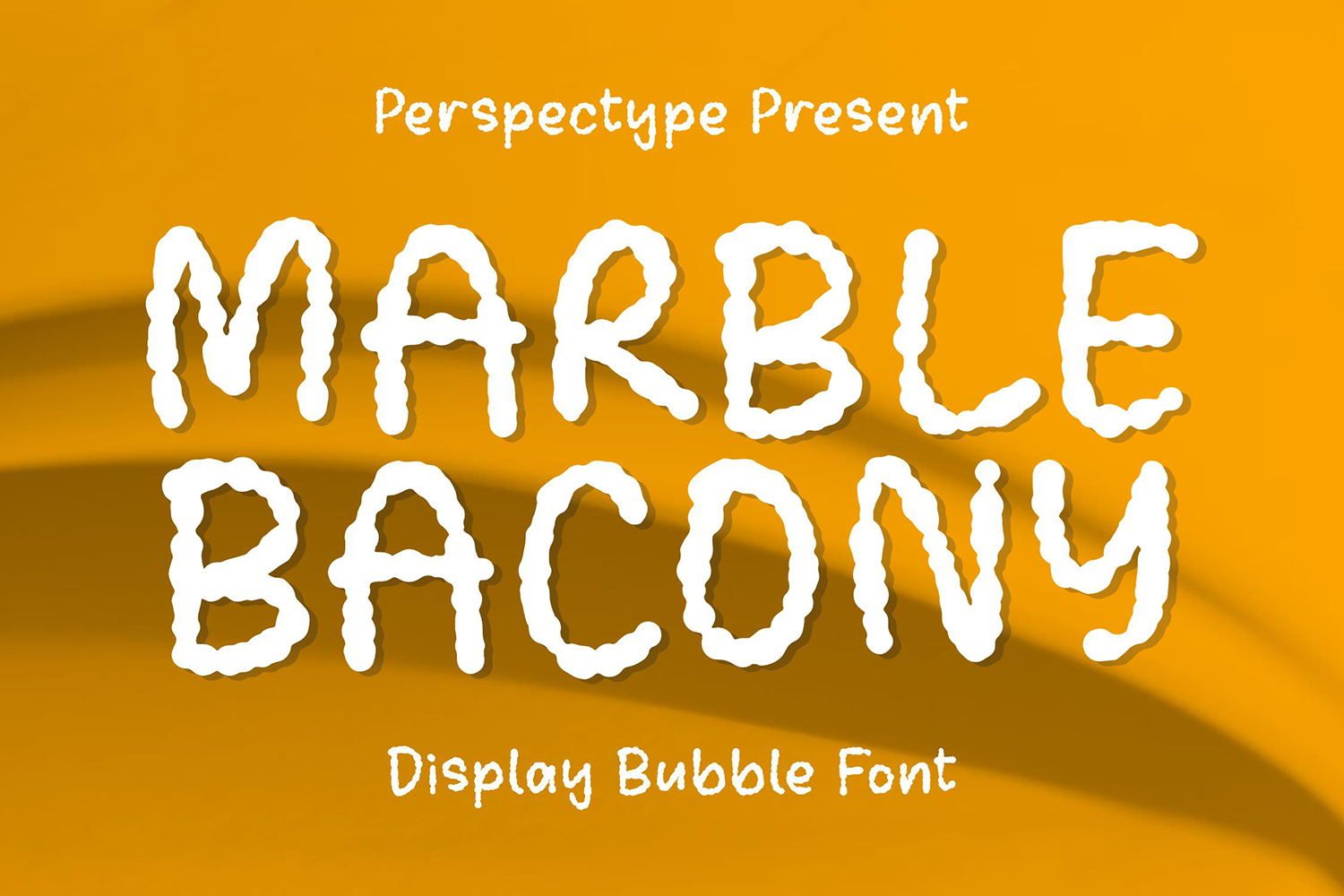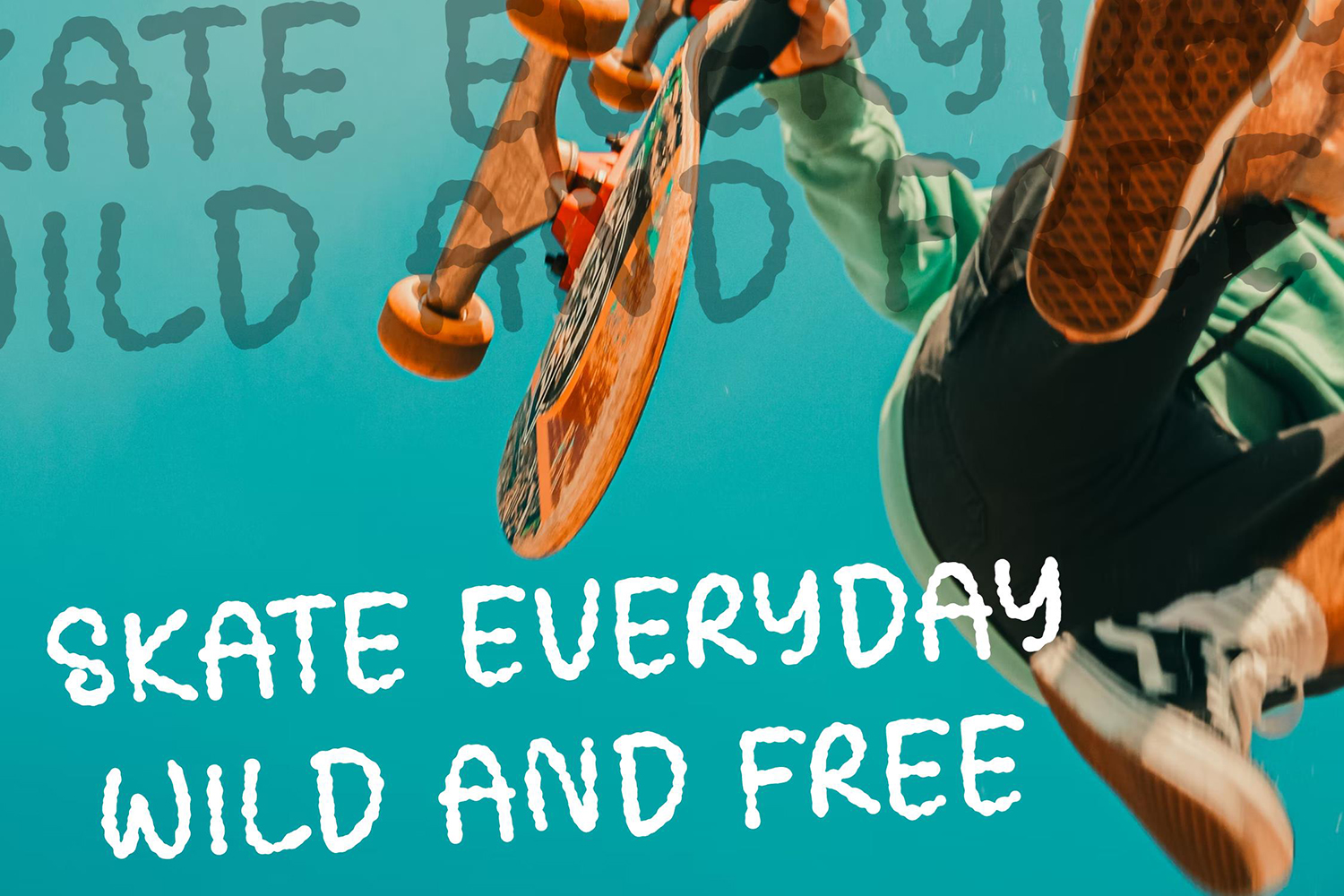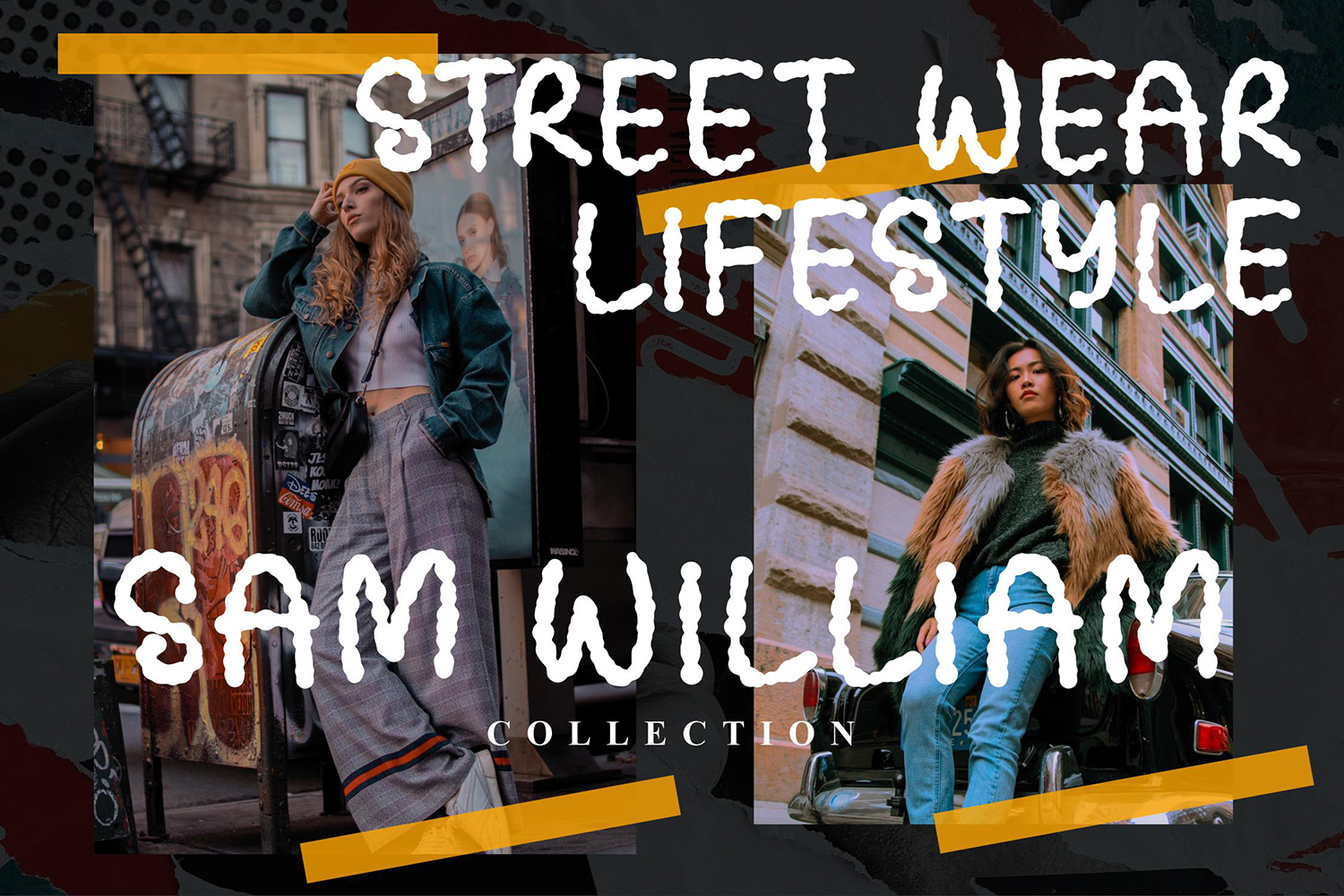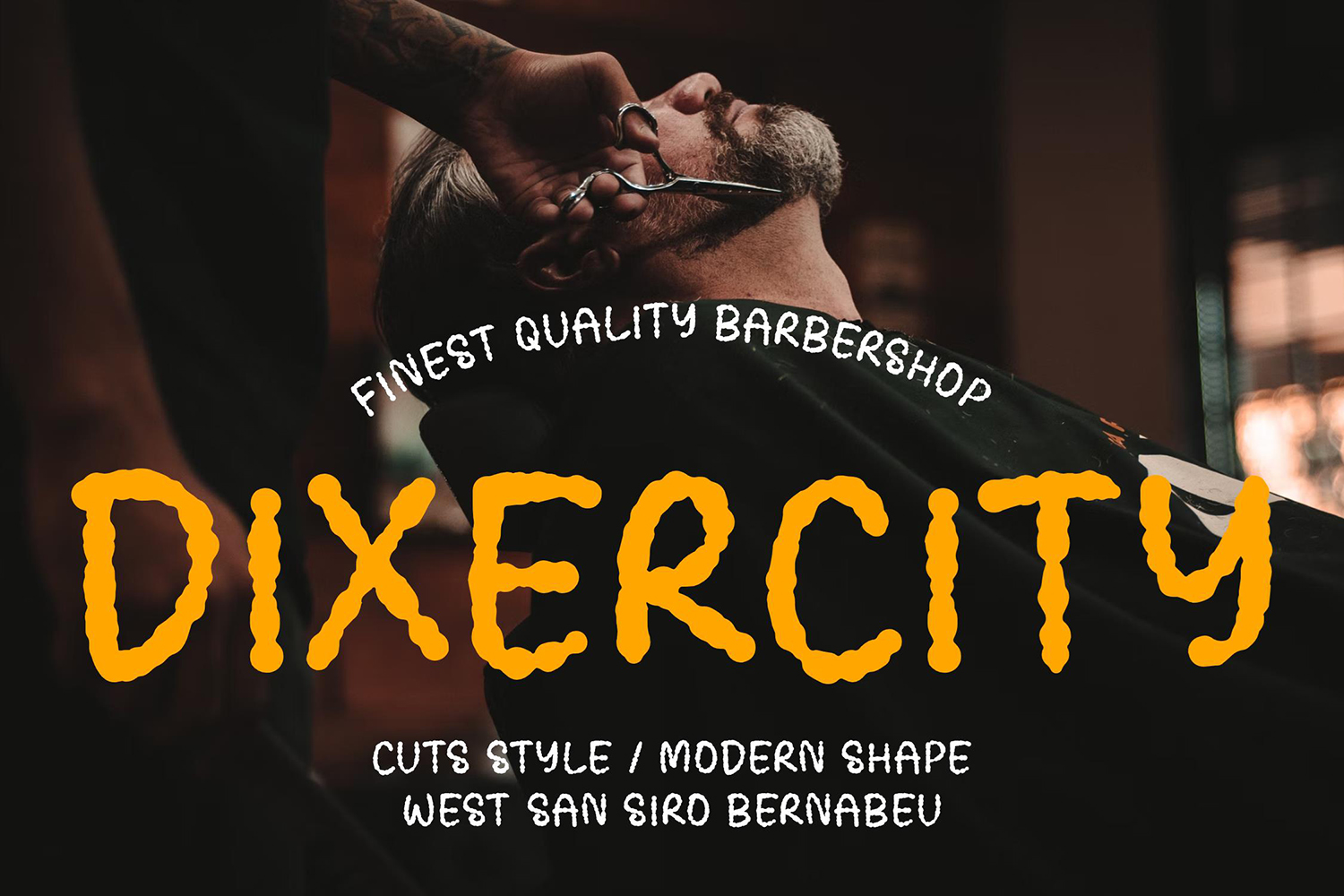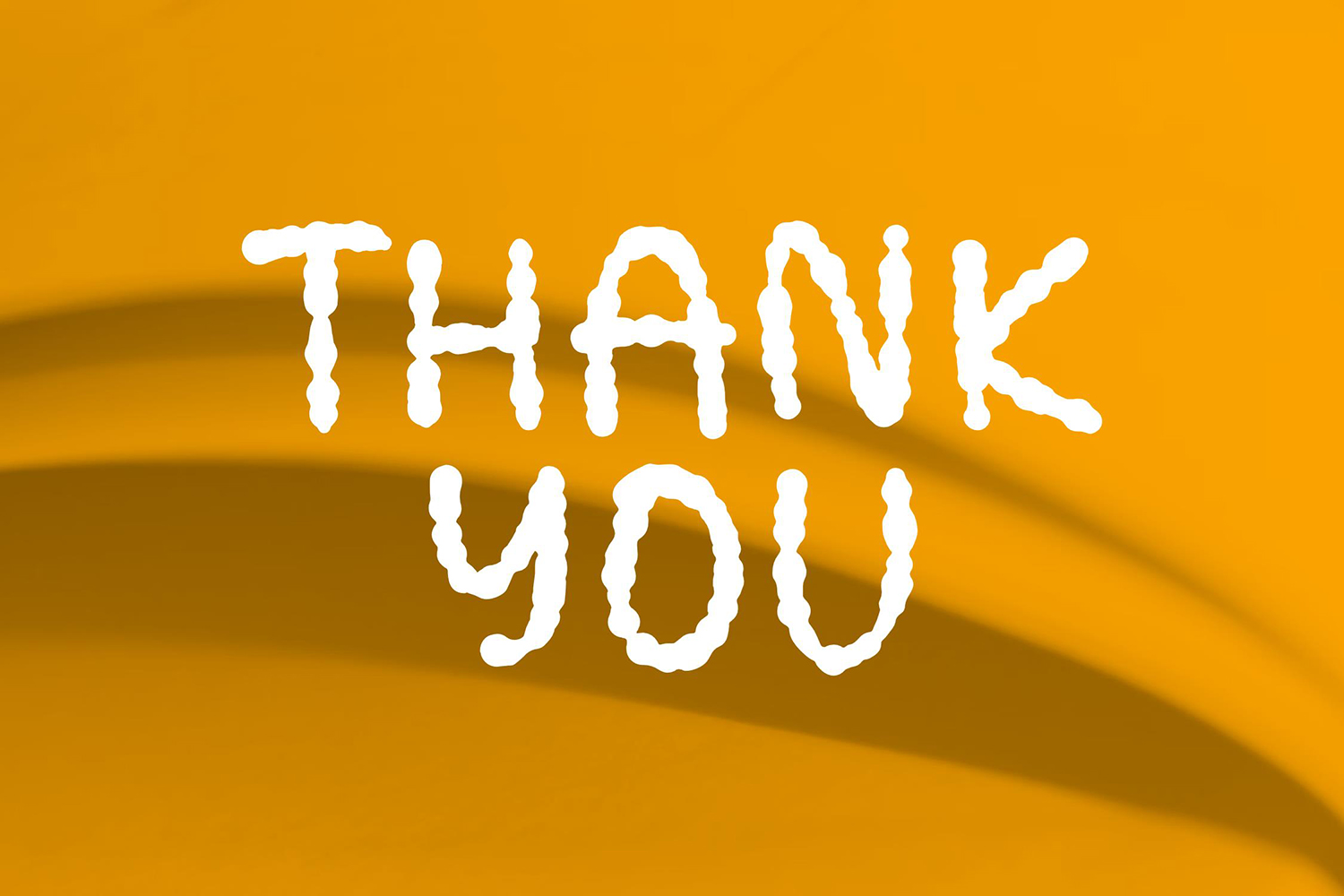
Marble Bacony Free Font
Marble Bacony Free Font is a whimsical handwritten display font. Add it to your creative ideas and notice how it makes them come alive. This free typeface was designed by a talented Allouse Studio. If you like it don’t forget to check out the full version.